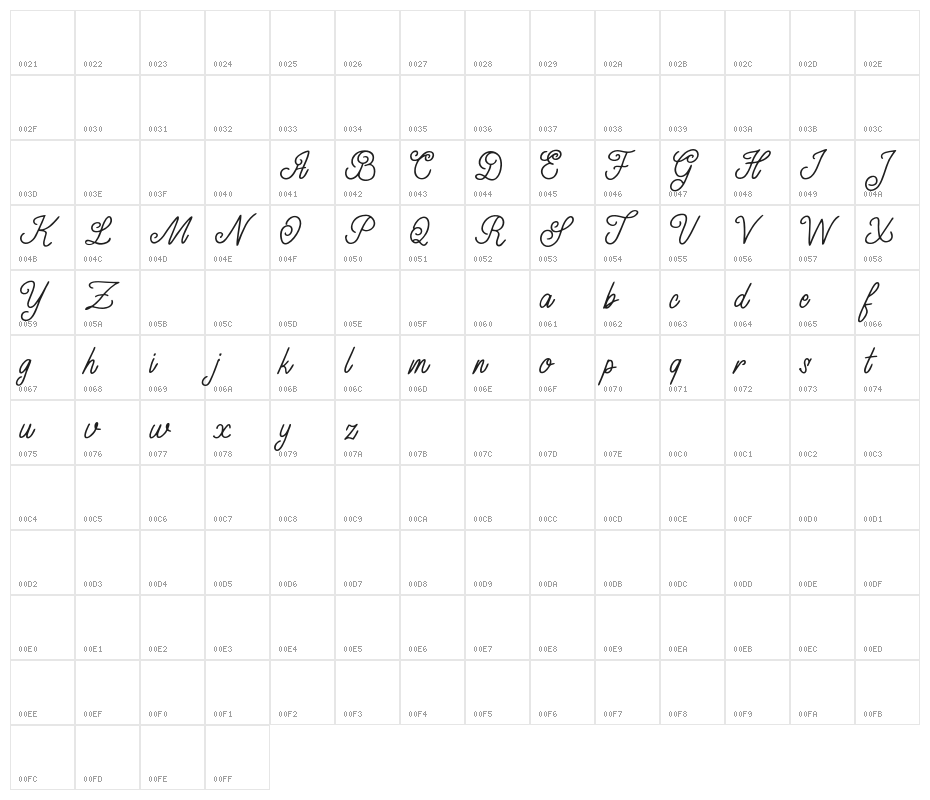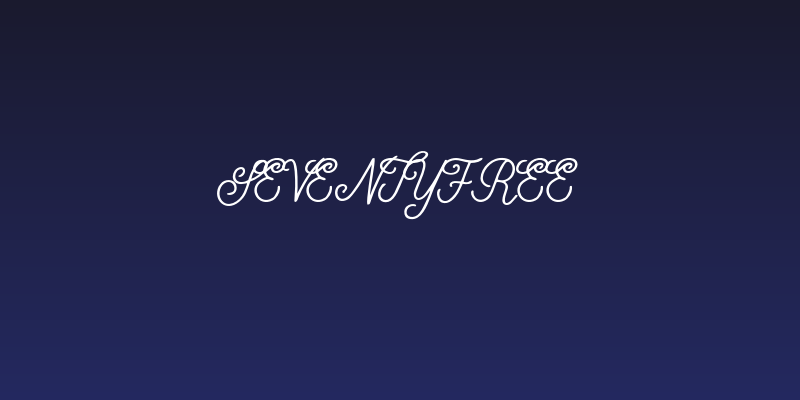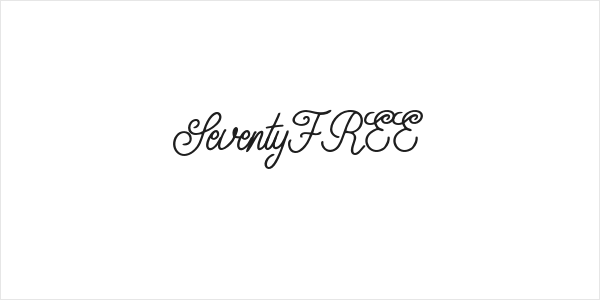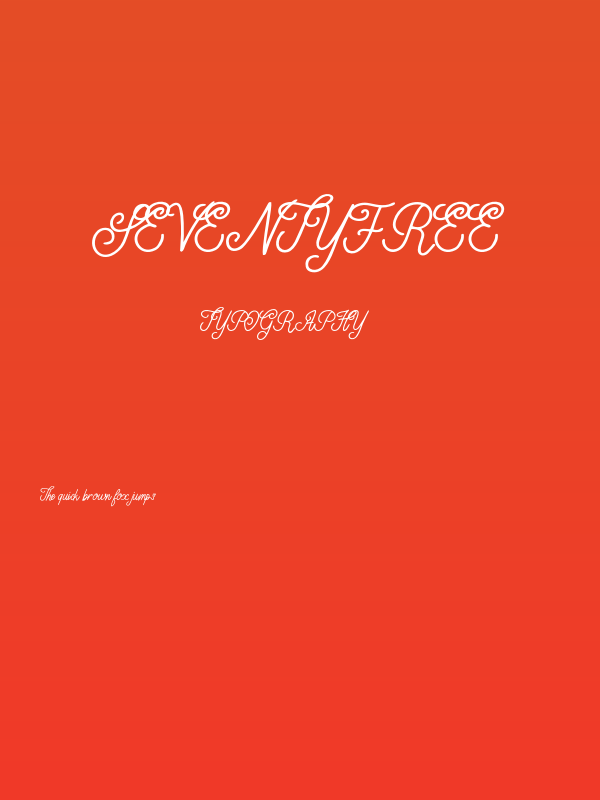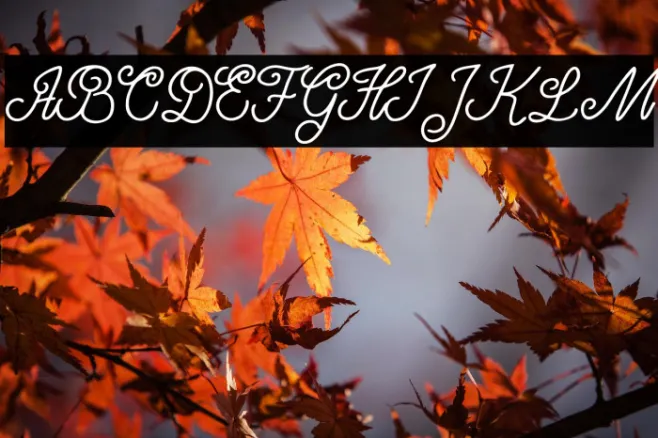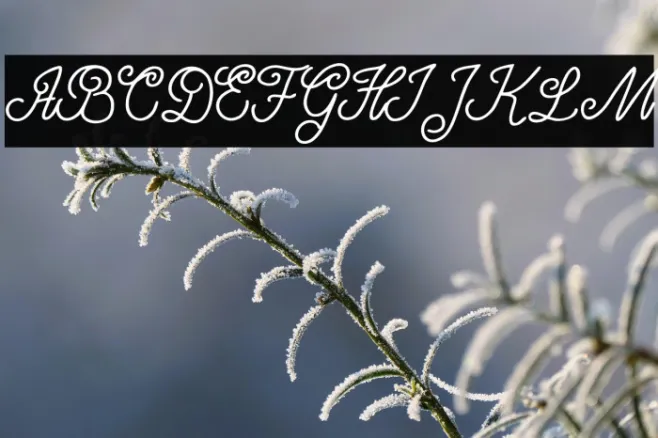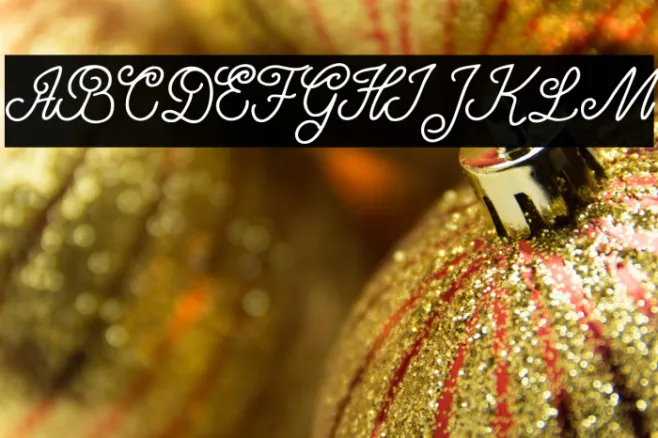
SeventyFREE Font
SeventyFREE Description
This font features an elegant and flowing script style, characterized by its cursive and connected letterforms. The uppercase letters exhibit a graceful, looping design, while the lowercase letters maintain a smooth, consistent flow. The strokes are moderately thick, providing a balanced contrast that enhances readability without sacrificing the decorative appeal. The font's overall appearance is sophisticated and artistic, making it suitable for creative and formal applications. The characters are well-spaced, allowing for clear legibility even in smaller sizes. This font's style is reminiscent of traditional calligraphy, yet it maintains a modern touch that makes it versatile for various design needs.
| Proposed Projects | Ideal for wedding invitations, greeting cards, branding projects, and elegant logos. |